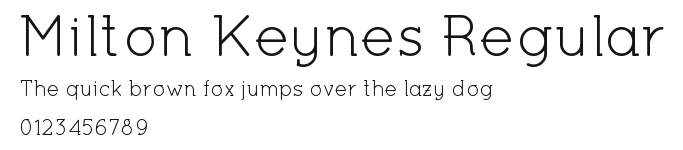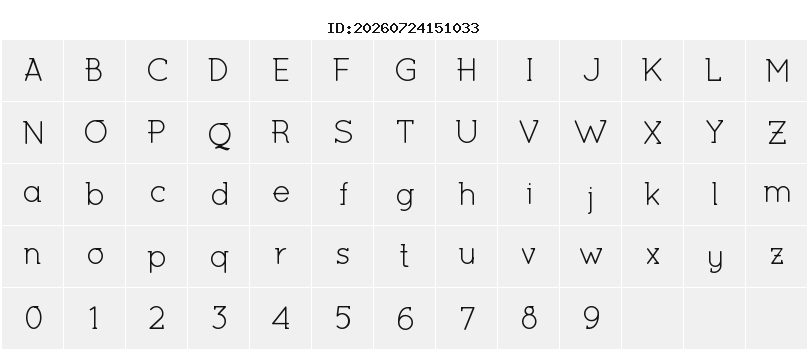
About Milton Keynes Regular.ttf
Milton Keynes Regular.ttf is a modern, elegant sans-serif font designed for ultimate readability and visual harmony. Perfect for branding, headlines, web design, and print materials.